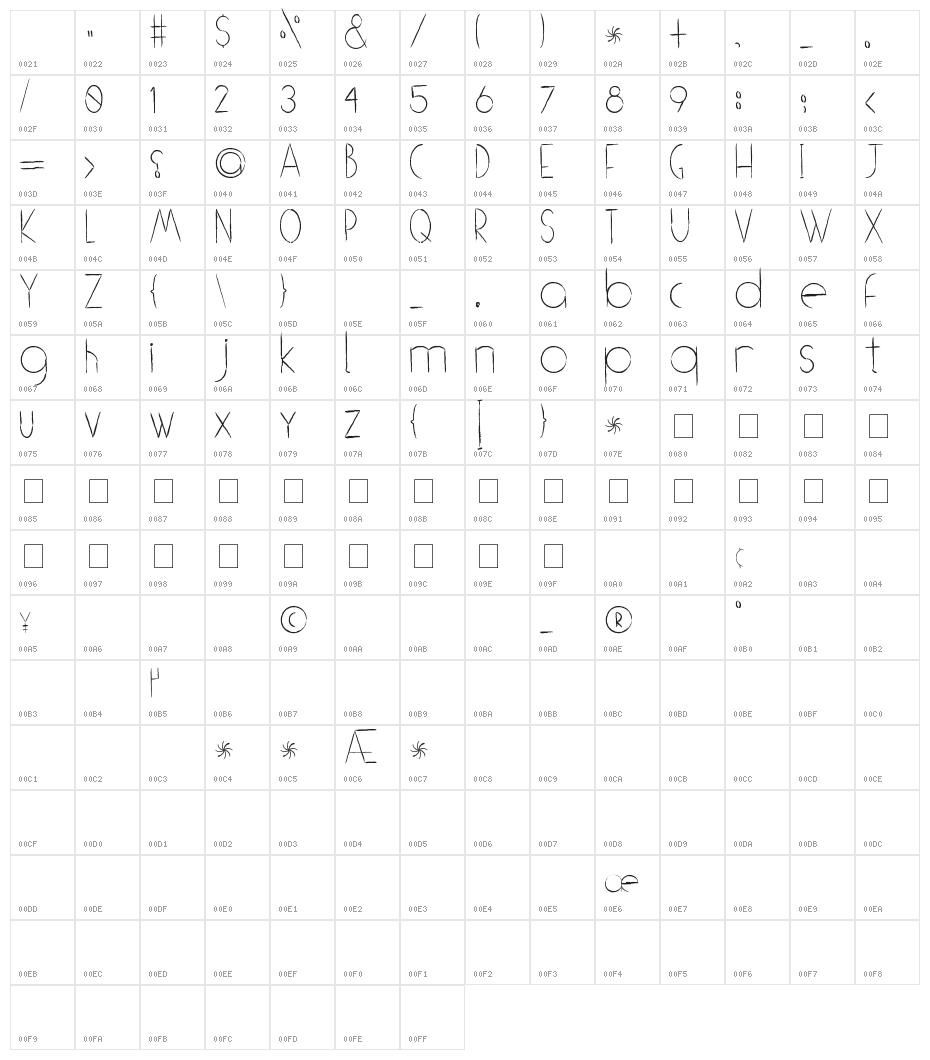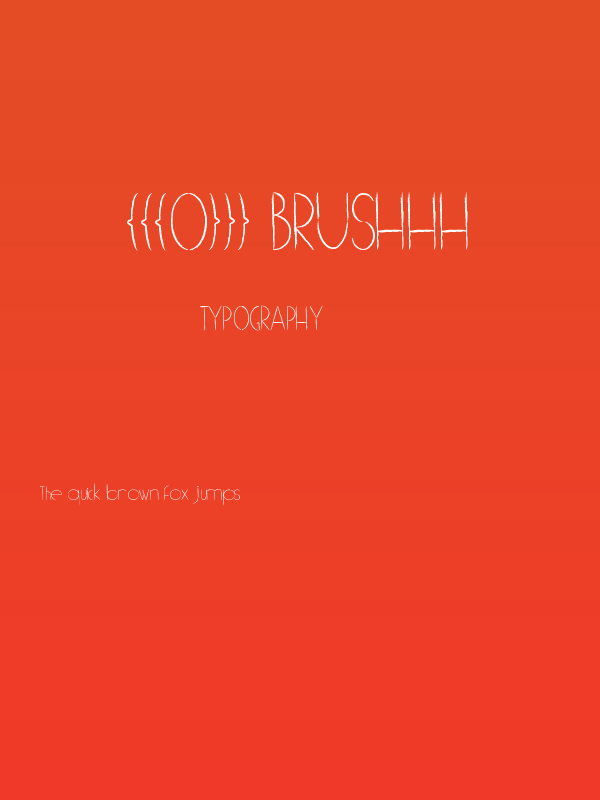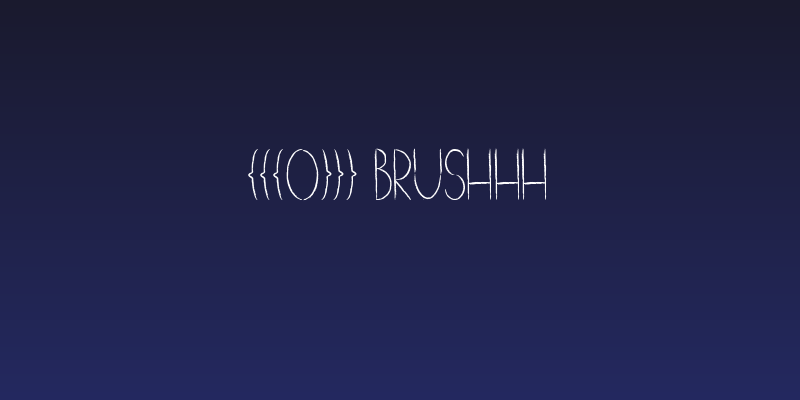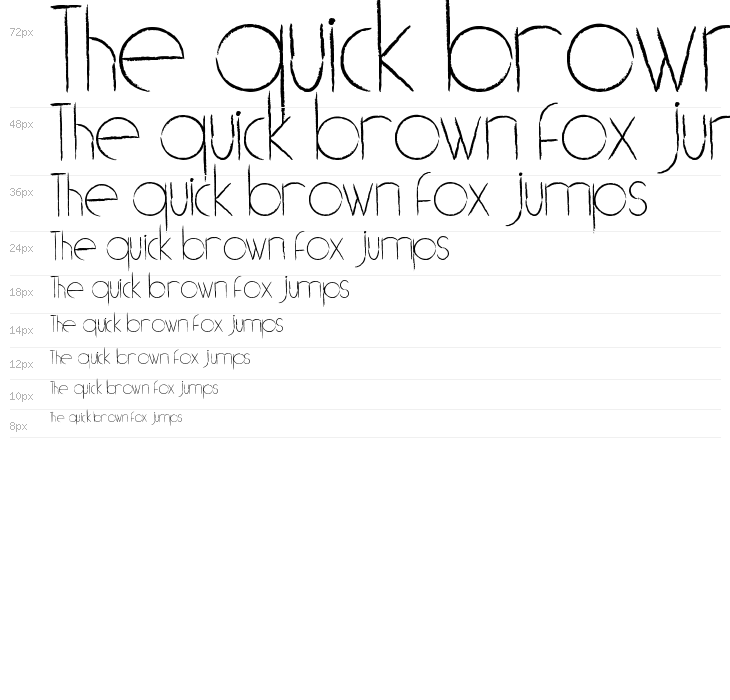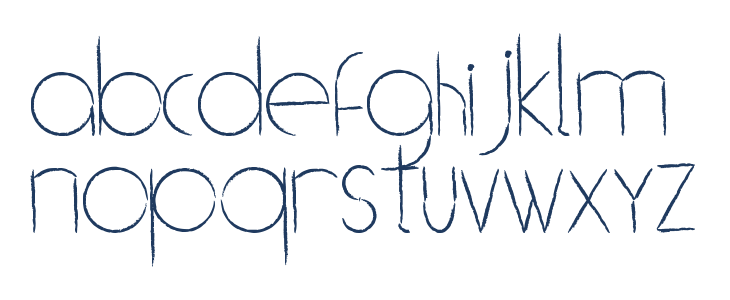
[[[o]]] brushhh Font
[[[o]]] brushhh Description
This font features a unique, hand-drawn style that mimics the fluidity and texture of brush strokes. The characters are tall and slender, with an organic feel that suggests movement and dynamism. The uppercase letters are particularly elongated, giving a sense of elegance and sophistication. The lowercase letters maintain a consistent style, with rounded forms that complement the uppercase set. Numbers and special characters are designed with the same brush-like quality, ensuring a cohesive look across all elements. The overall appearance is artistic and expressive, making it suitable for creative projects that require a personal touch.
| Overall Style | Artistic, Handcrafted |
| Proposed Projects | Ideal for artistic projects, invitations, greeting cards, branding for creative businesses, and any design requiring a personal, handcrafted touch. |